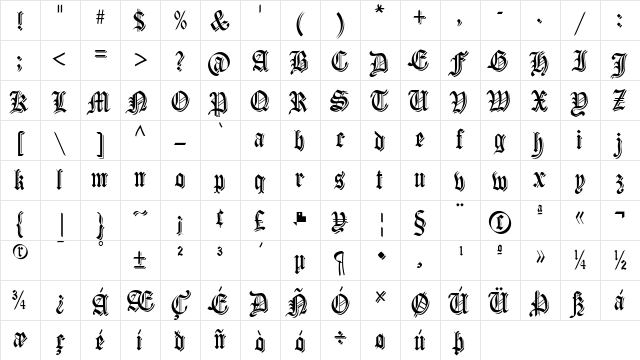
Complete Carta Magna Line FFP glyph index. Displaying only characters natively supported by Carta Magna Line FFP font.
Carta Magna Line is a composed and adaptable typeface that performs quietly and consistently across a wide range of design contexts.